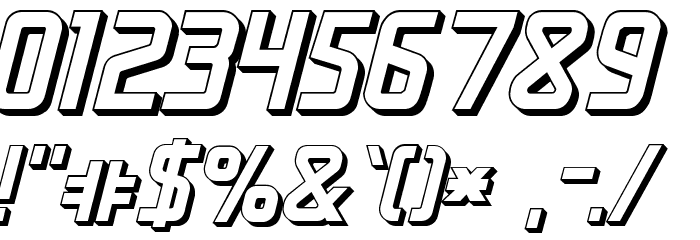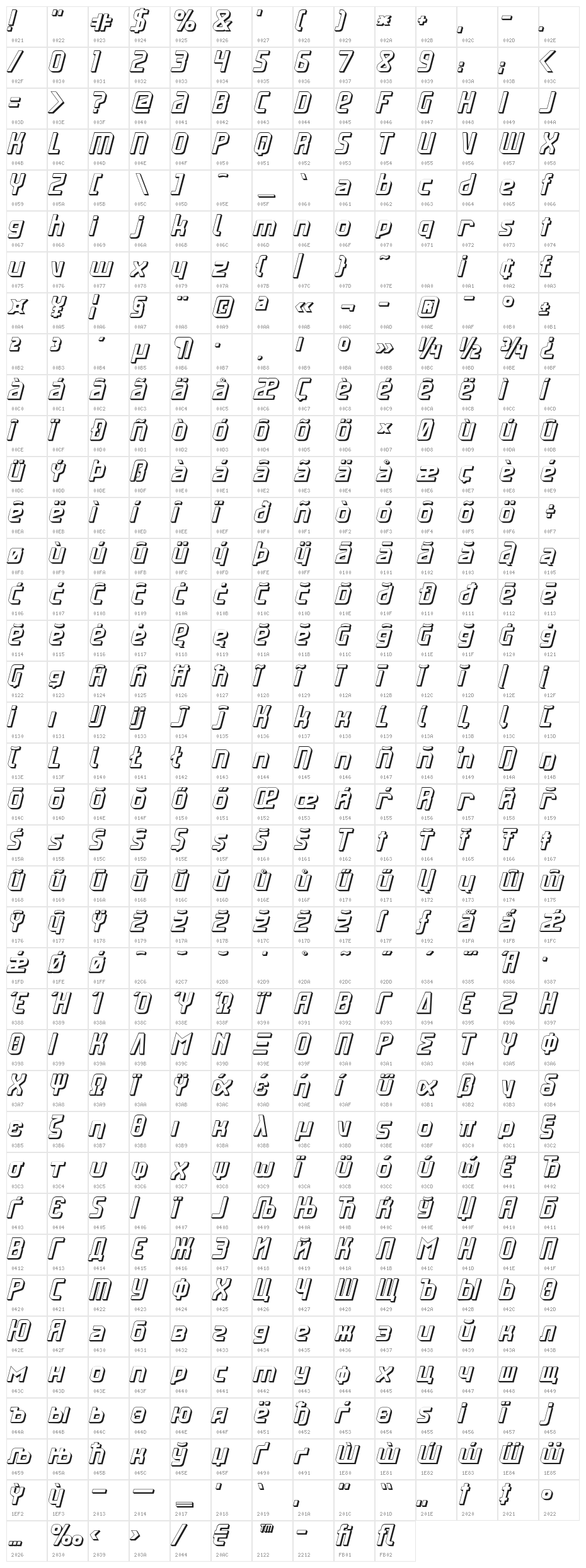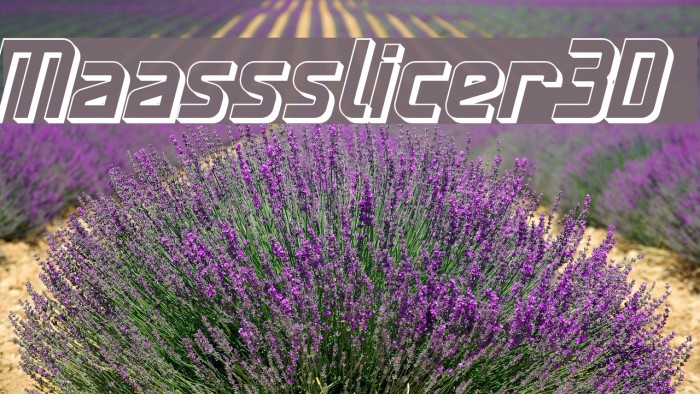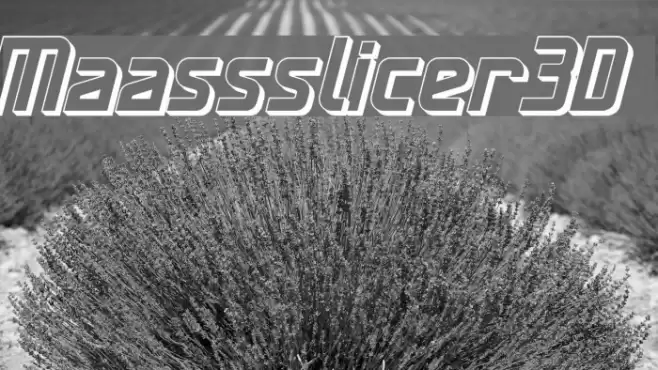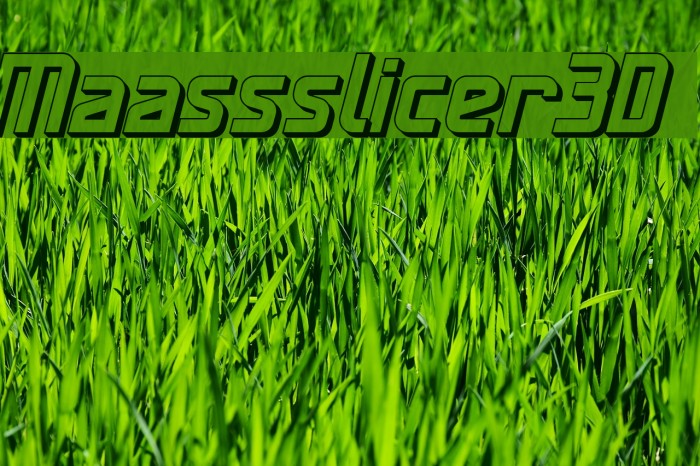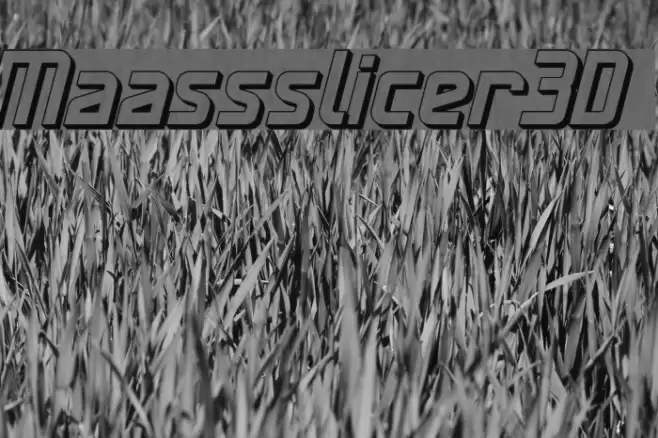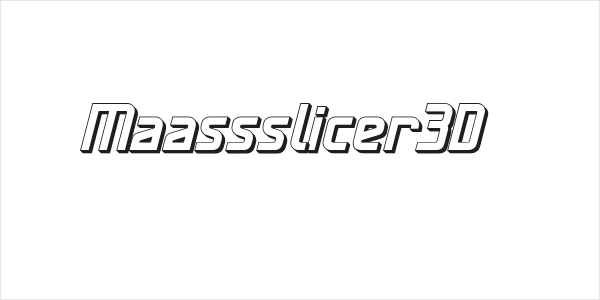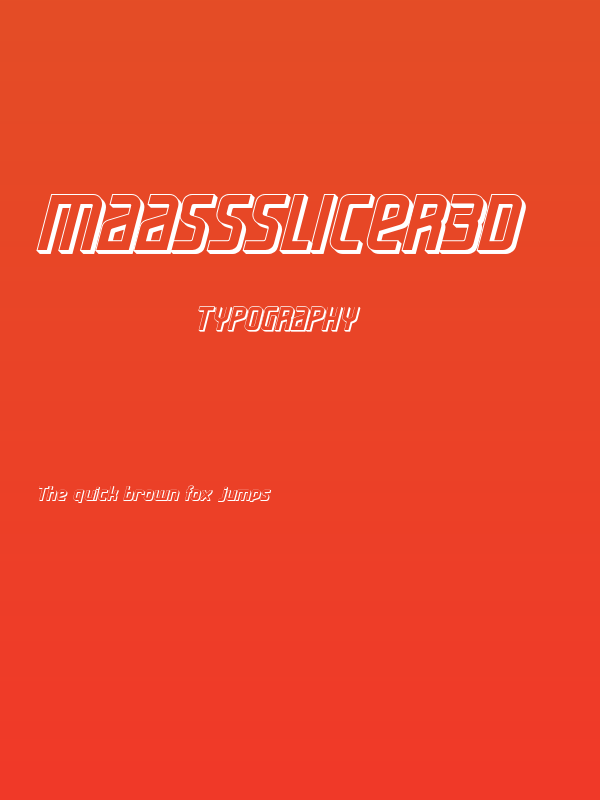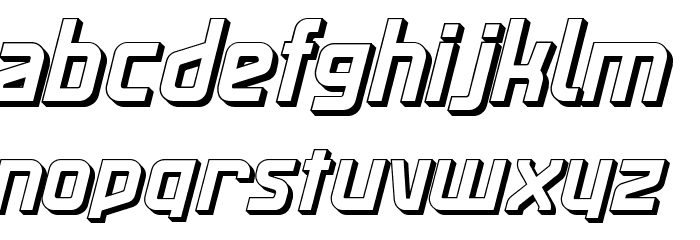
Maassslicer3D Font
Maassslicer3D Description
This font features a bold, three-dimensional style with a strong, impactful presence. The characters are outlined with a shadow effect, giving them a dynamic and modern look. The uppercase and lowercase letters maintain a consistent geometric structure, while the numerals and special characters follow the same design principles. The font's overall appearance is clean and futuristic, making it suitable for projects that require a bold statement. The spacing between characters is balanced, ensuring readability while maintaining its distinctive style.
| Proposed Projects | Ideal for headlines, posters, branding, and any design that requires a striking and modern touch. |